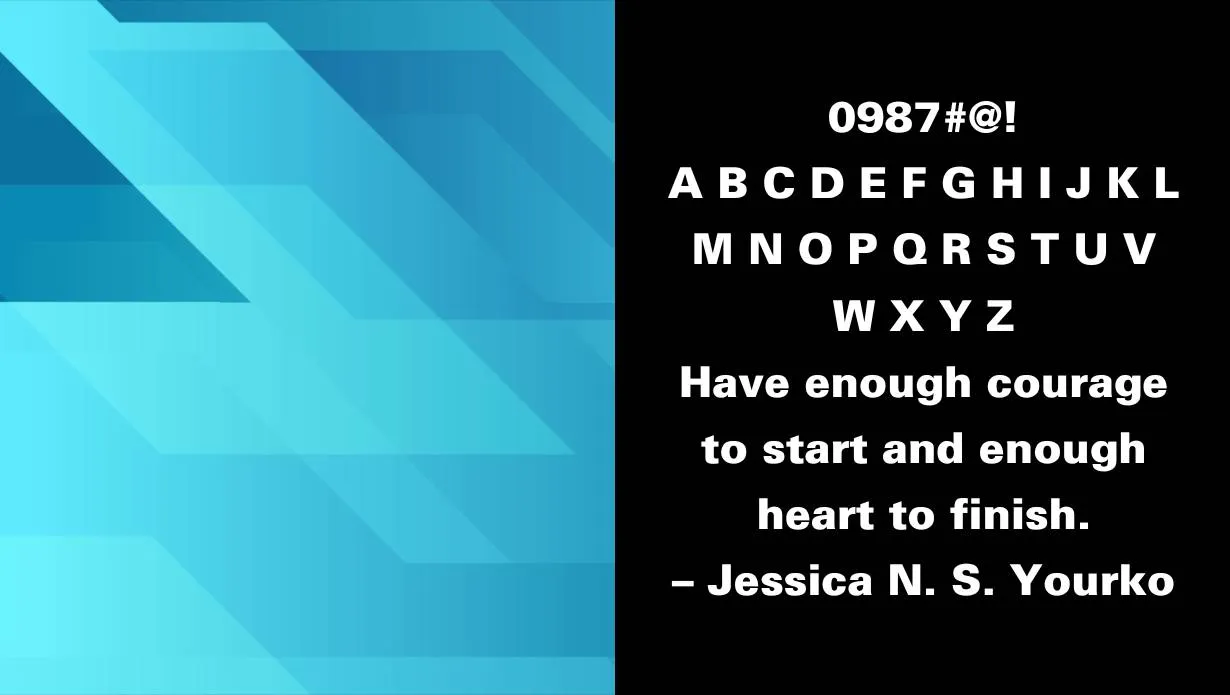
The font from Harvard University embodies the scholarly spirit of written communication. Its clean and academic design makes it perfect for creating polished presentations, designing simple book covers, or adding a hint of intellectual elegance to your projects.
This font has a medium weight and standard width, giving your words a refined and scholarly appearance. Imagine using the Harvard font for an educational website, turning your text into a symbol of knowledge.
| Name | Harvard Font |
| Designer | Randa Ashraf |